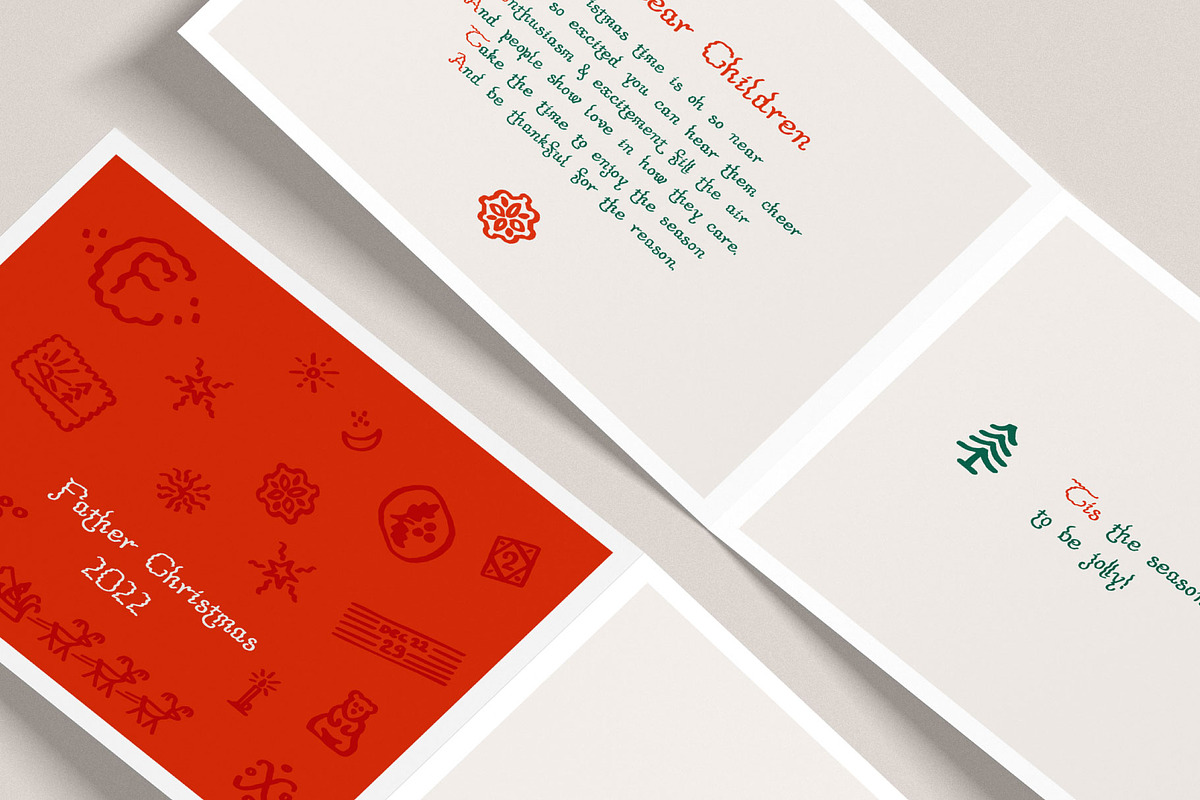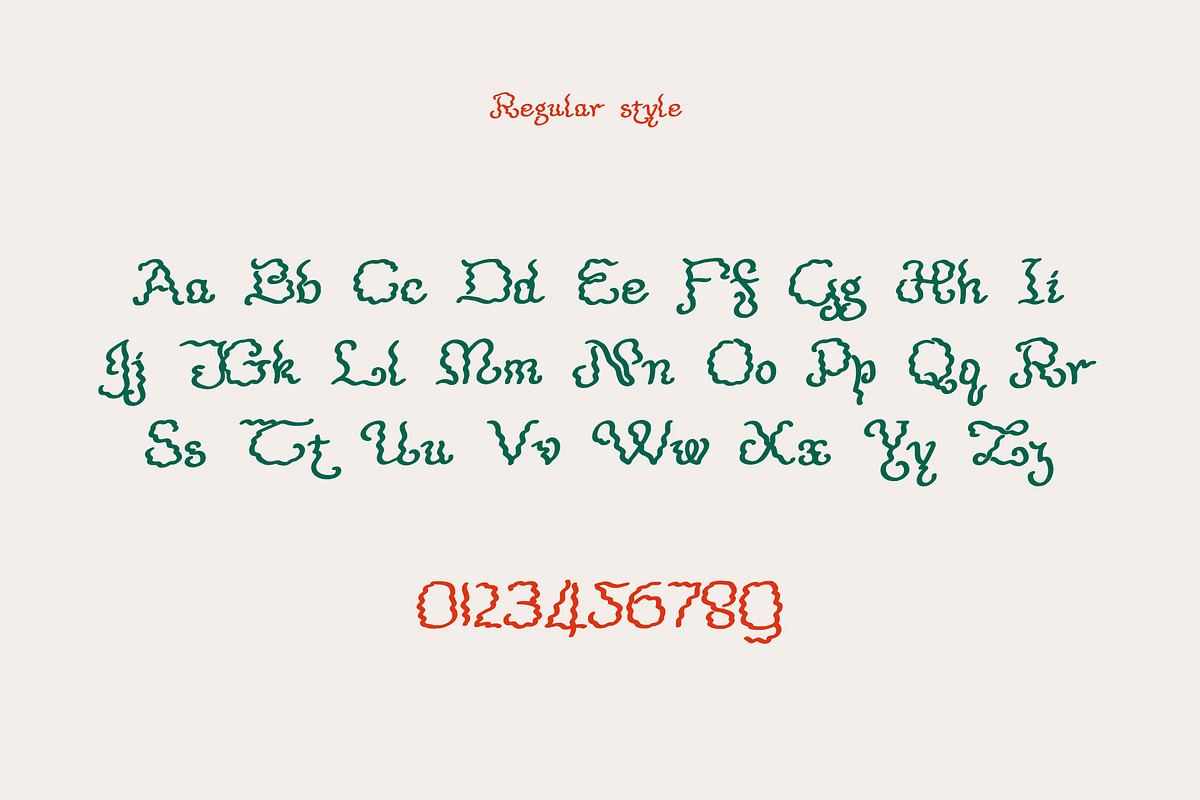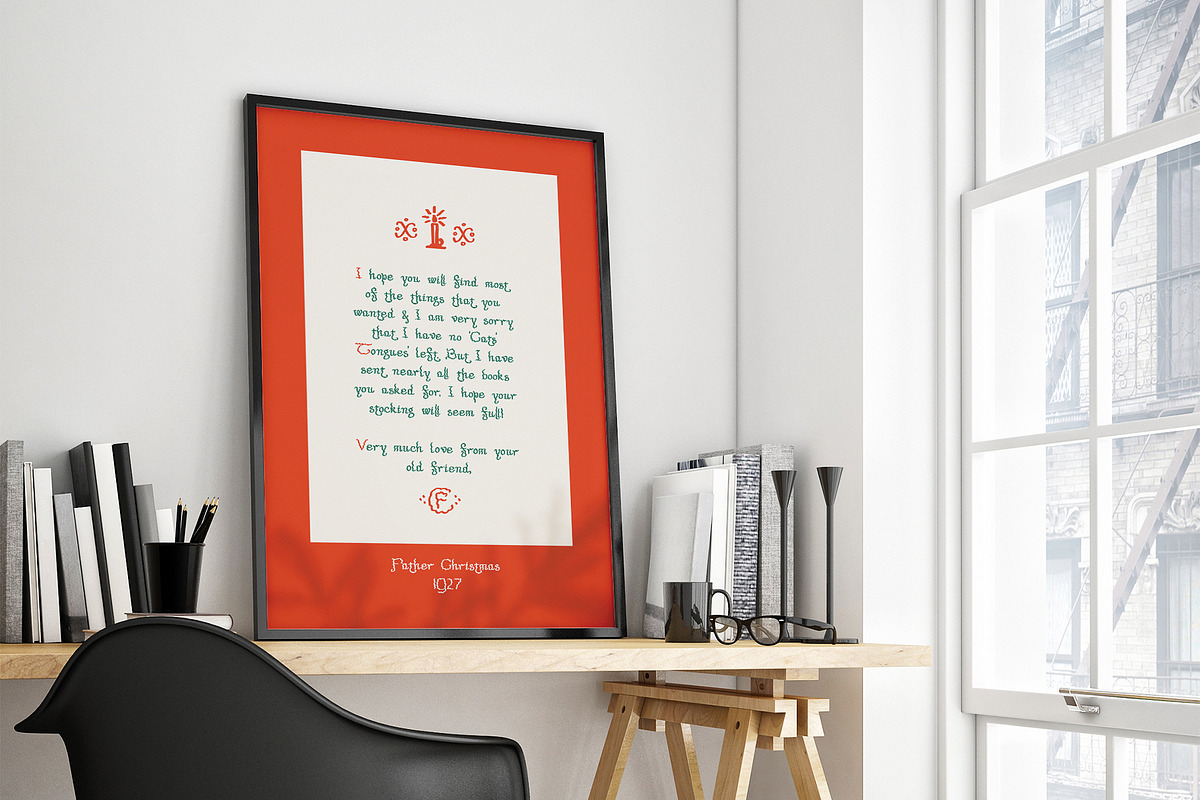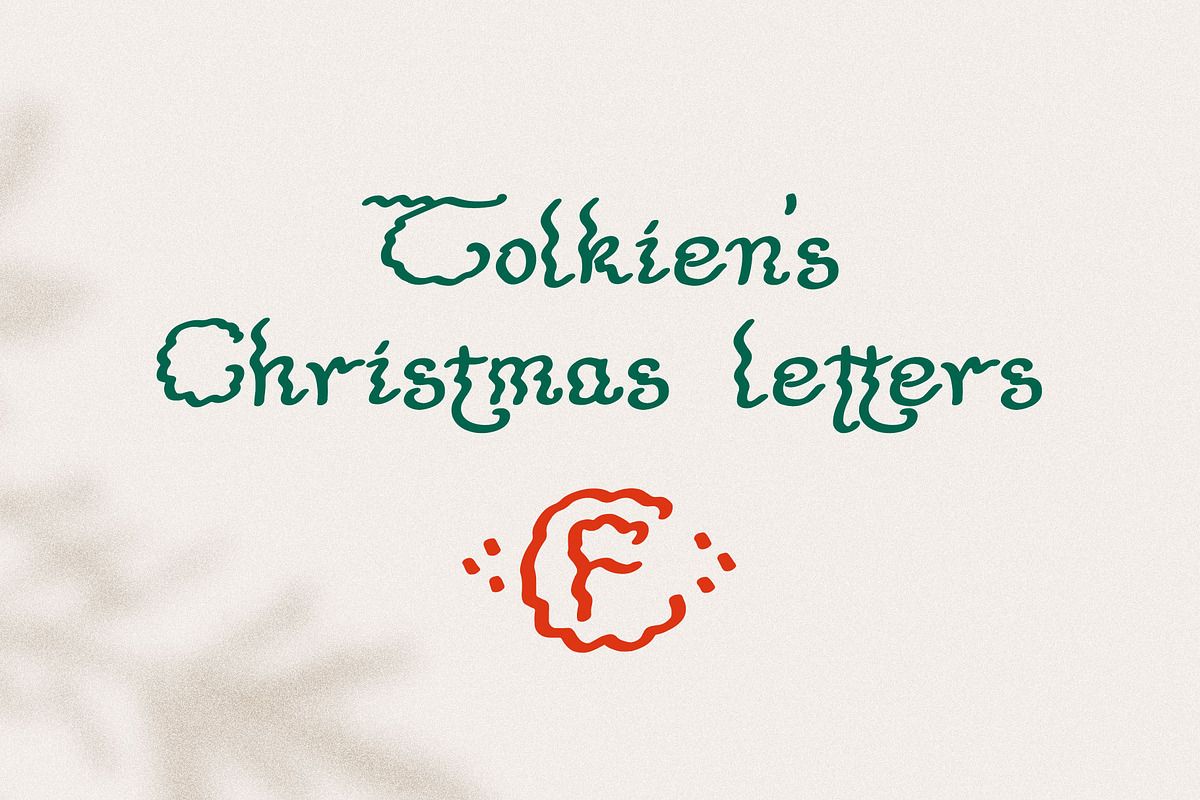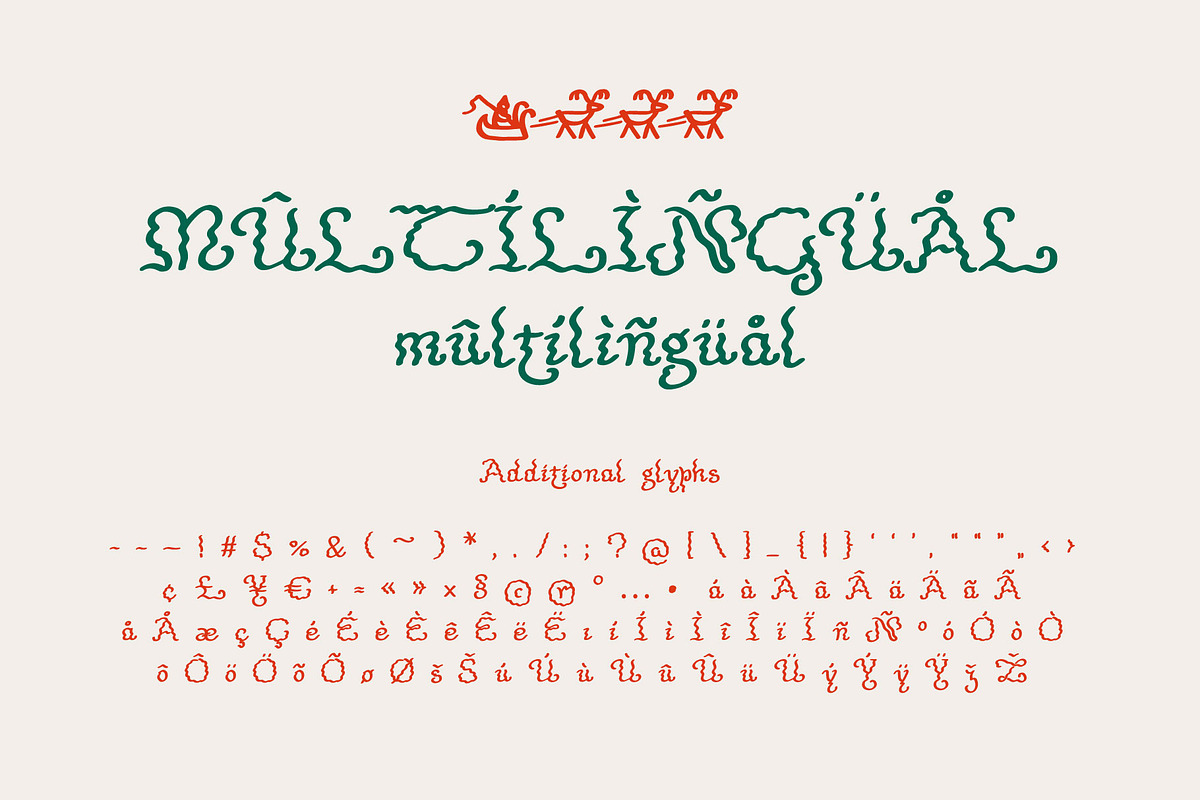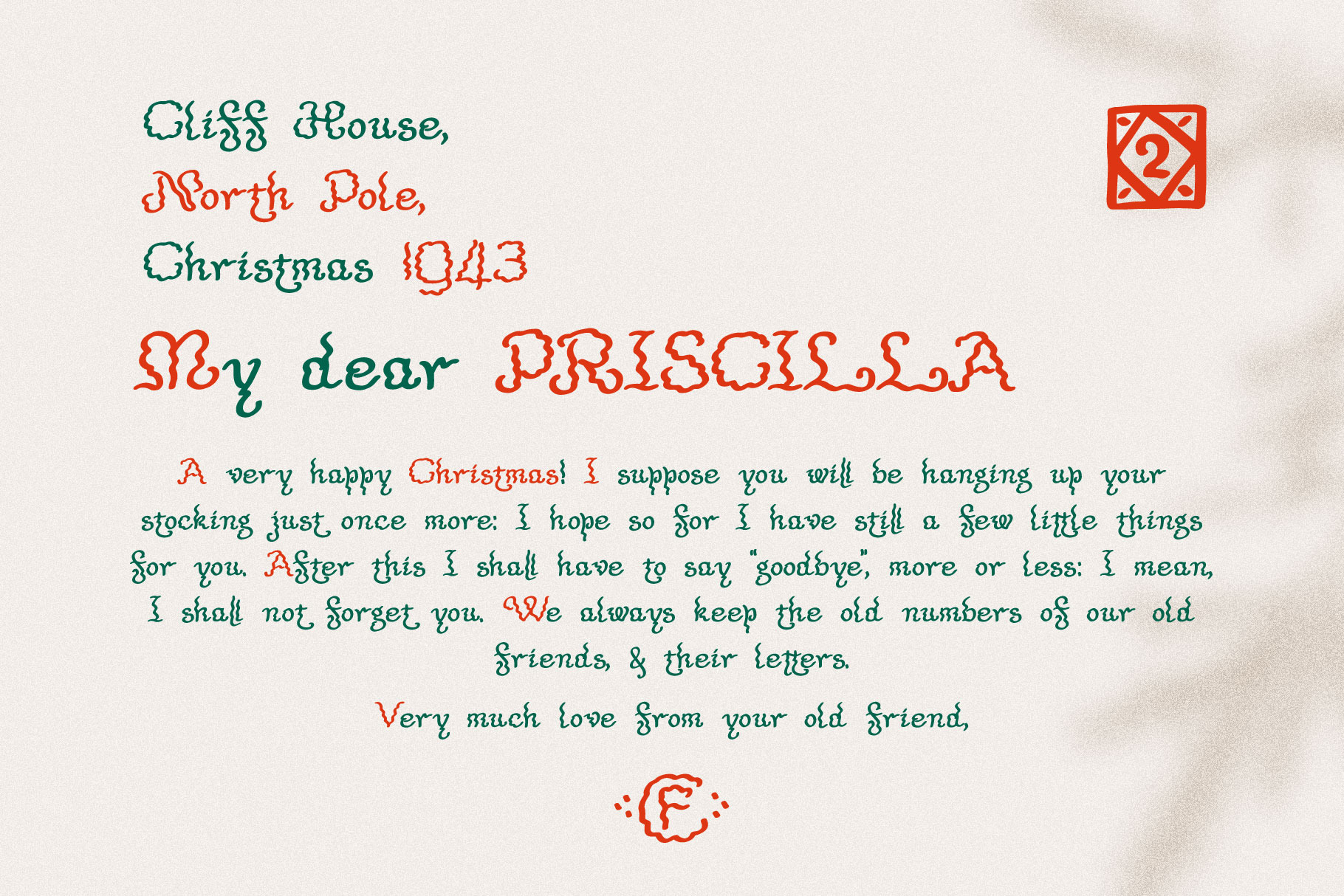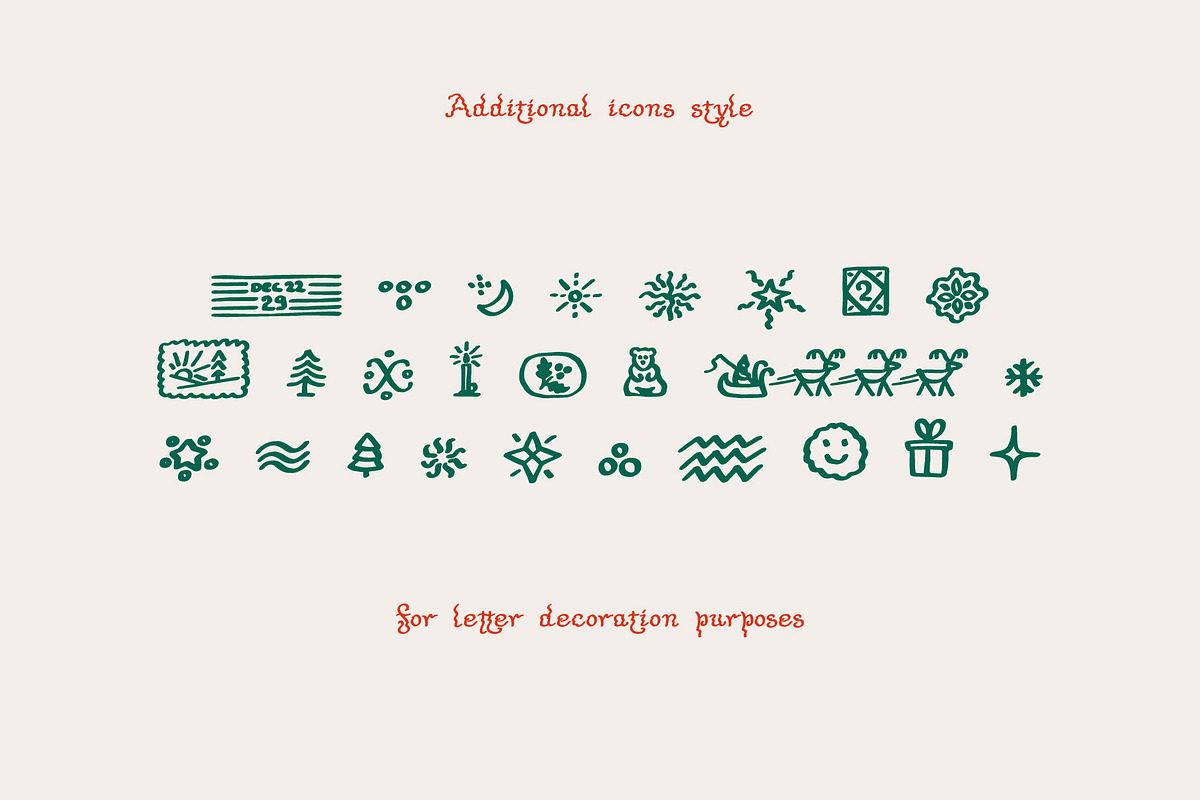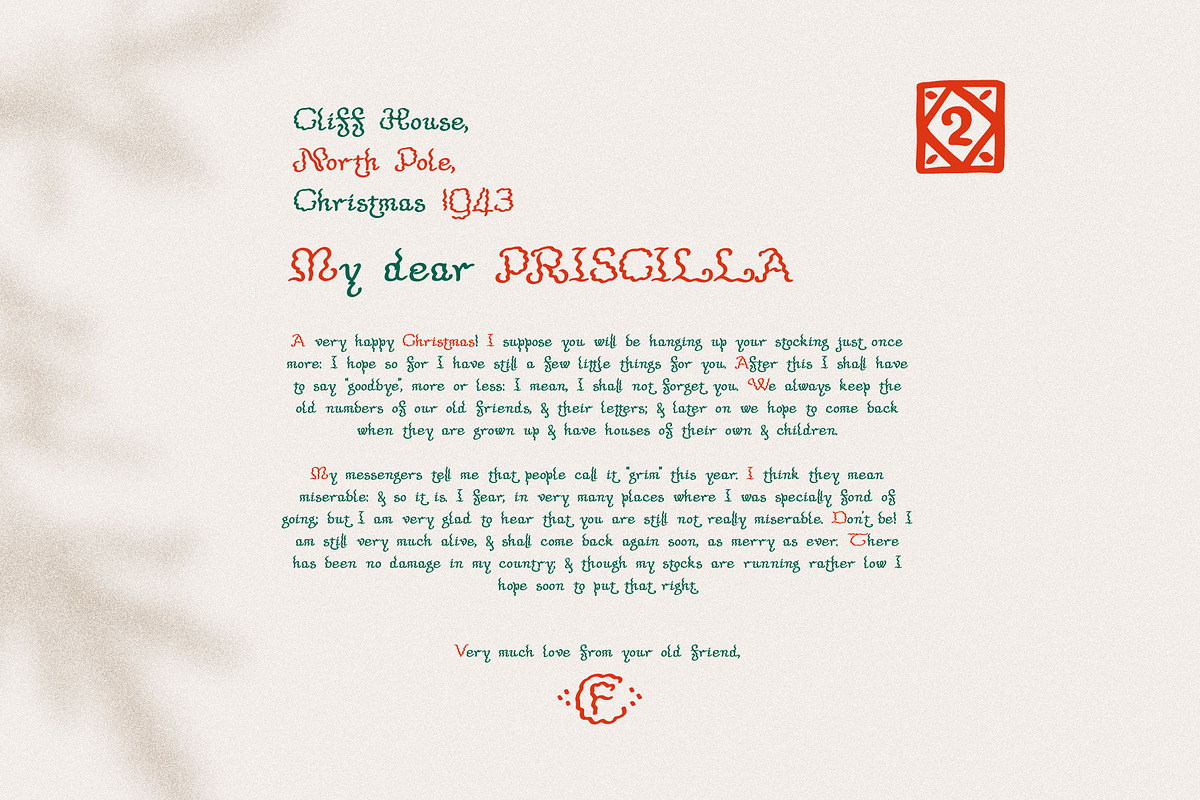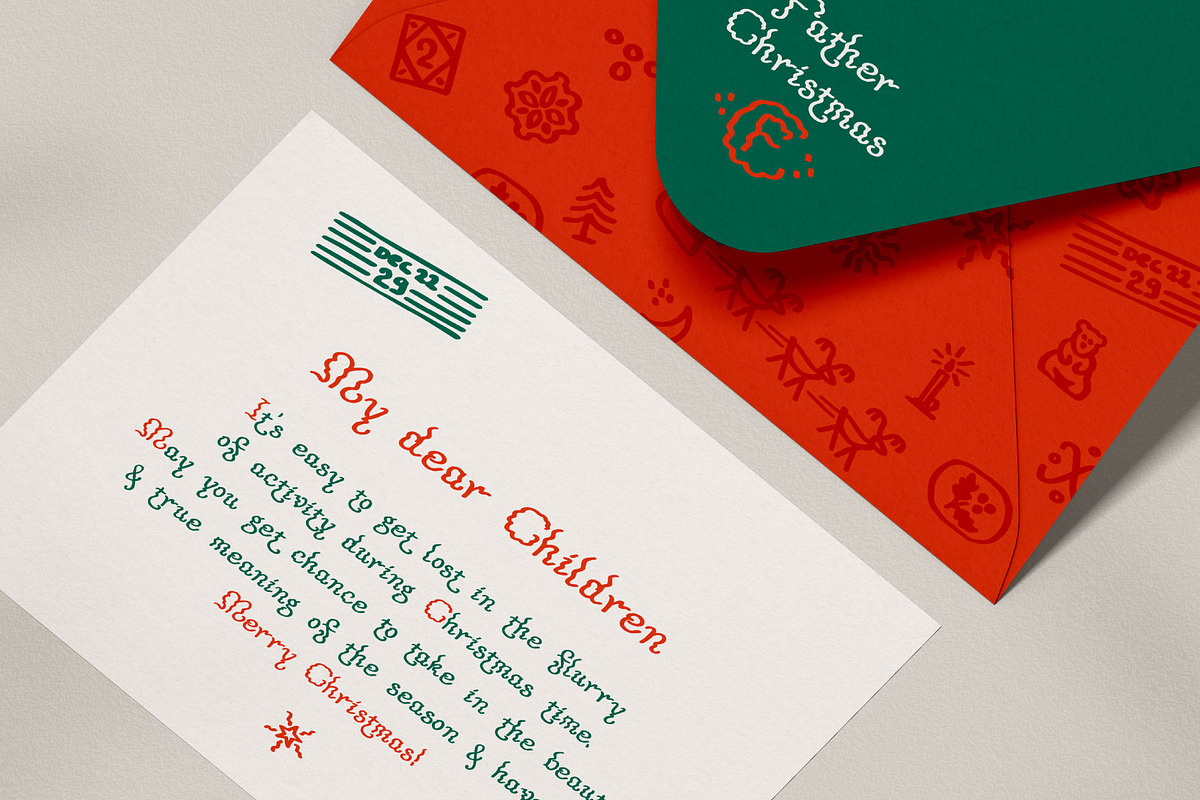
Tolkien's Christmas Letters fonts
Hey guys! Once I got a book Letters From Father Christmas by J.R.R. Tolkien. He wrote them for the children every December from 1920 to 1943. I totally fell in love with the calligraphy in those letters. Now I created a font and you can use it to write your own letter from the North Pole. I've also redrawn stamps and patterns from that book, so you can decorate your blank.
- Regular and Icons styles
- Numbers and symbols
- Multilingual support and alternative symbols